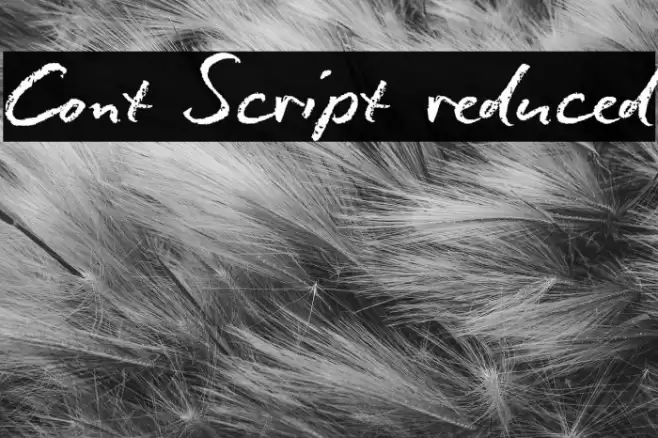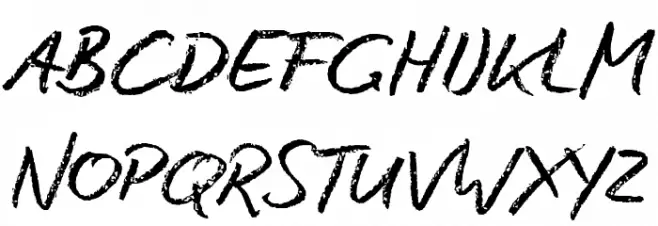
Conté Script reduced Font
Conté Script reduced Description
This font exhibits a dynamic and expressive style, characterized by its handwritten appearance with a textured, brush-like effect. The letters are slightly slanted, adding a sense of movement and fluidity. The strokes vary in thickness, creating a natural and organic feel. The uppercase and lowercase letters maintain a consistent style, with some letters featuring unique flourishes that enhance the overall aesthetic. The font's rough texture gives it a rustic and artistic quality, making it suitable for creative and informal applications.
A textured, handwritten script font with a dynamic and expressive style from Regular fonts.
- Proposed Projects: Ideal for artistic projects, invitations, greeting cards, and branding that requires a personal touch.
- Use Case: Logos, Headlines, Creative projects